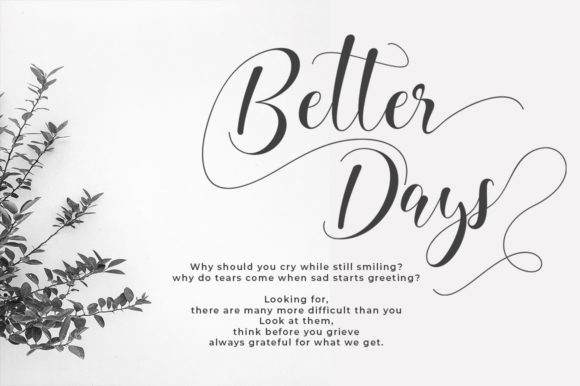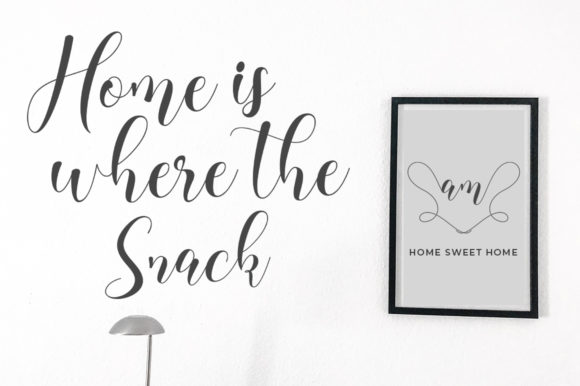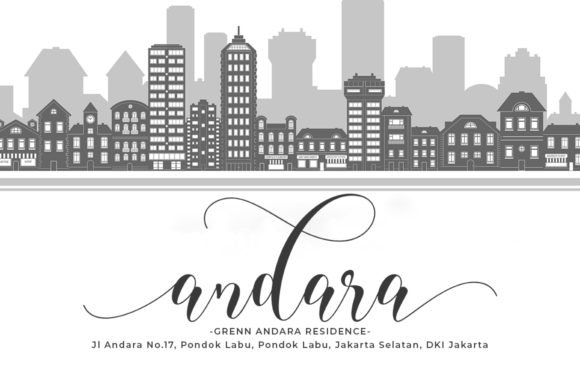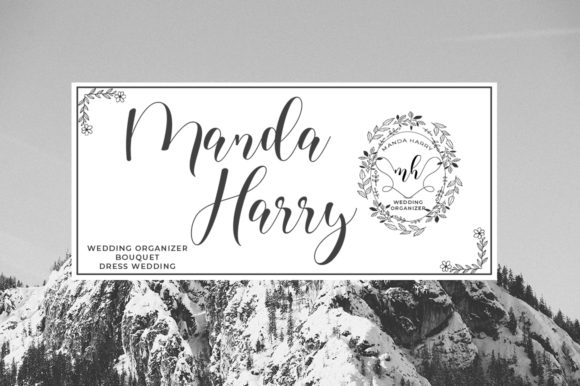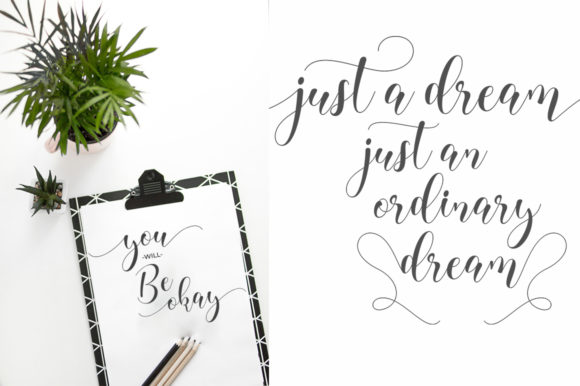
The Perfect Script for Your Creative Vision
Have you ever stumbled upon a font that instantly sparks a creative idea? For me, it was the moment I laid eyes on Beauty Home Font. Its soft, hand-lettered charm transported me to a world of whimsical wedding invitations, delicate stationery, and vibrant social media posts. I knew right then and there that I had to share this beauty with fellow designers.
Beauty Home Font is a sweet, authentic script that’s perfect for adding a personal touch to your designs. Its versatility makes it an ideal choice for everything from wedding invitations to social media posts. With its unique, handwritten feel, Beauty Home Font is sure to elevate your designs and leave a lasting impression on your audience.
Key Features of Beauty Home Font
- Unique Characteristics: This font features a modern and elegant design with subtle rounded edges, giving it a sophisticated and feminine touch.
Beauty Home Font Review
Overall, I think Beauty Home Font is a decent choice for a home decor-inspired font. ✨ It’s elegant and sophisticated, making it perfect for wedding invitations, menus, or any other formal event where you want to convey a sense of luxury.
Here are some of the things that work well with Beauty Home Font:
- ✨ Elegant and refined letterforms
- ✨ Wide range of weights and styles to choose from
- ✨ Great for creating a cohesive and polished look
- ✨ Versatile enough to be used for various design projects
However, I do have some concerns about the font’s limitations:
- ⚠️ Limited support for non-Latin scripts
- ⚠️ May not be suitable for digital displays or screens due to its elegant and refined design
- ⚠️ May be too ornate for some design projects, making it difficult to read
Overall, I would give Beauty Home Font 3.5 out of 5 stars. It’s a great choice for formal events or designs that require an elegant touch, but it may not be the best fit for every project. With some careful consideration and planning, Beauty Home Font can be a beautiful addition to your design portfolio.
Beauty Home Font is ideal for beauty and wellness-related designs, such as:
- Beauty product packaging
- Spa and salon branding
- Beauty blog and website design
Remember to use the font in conjunction with other design elements to create a cohesive and visually appealing design.